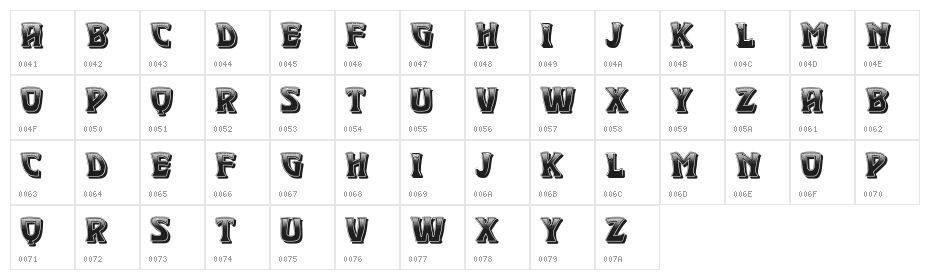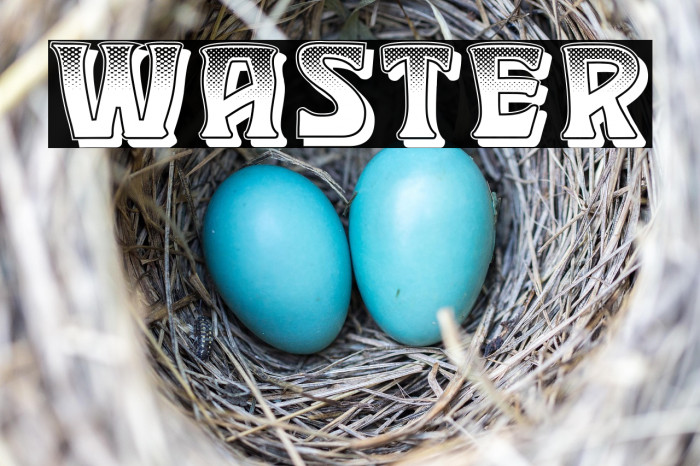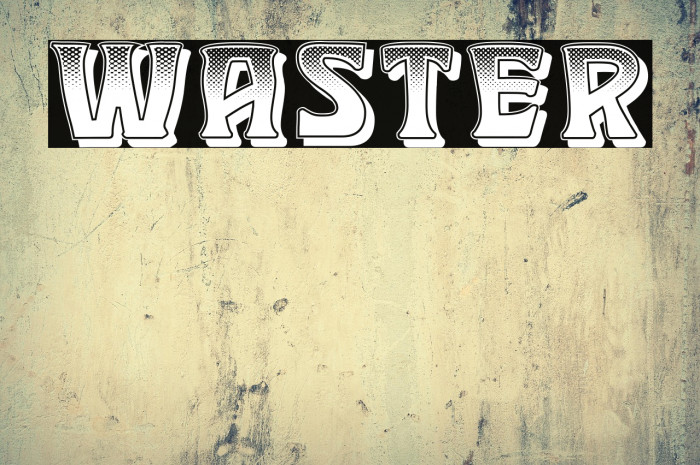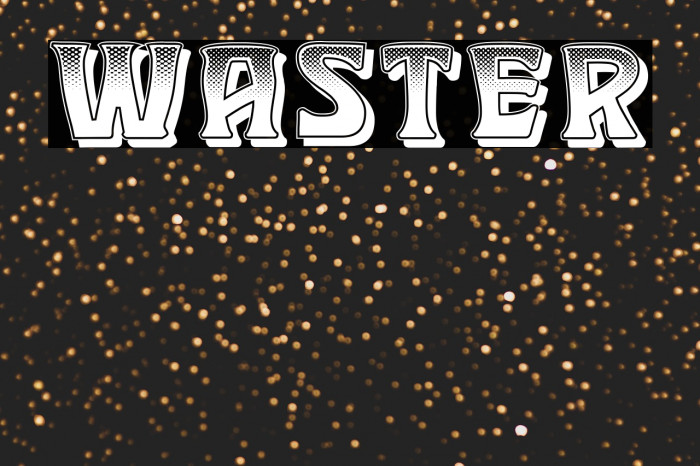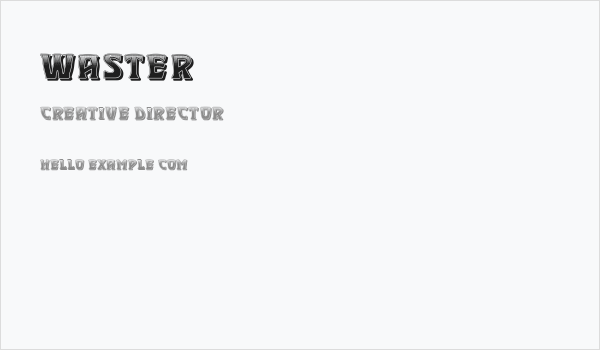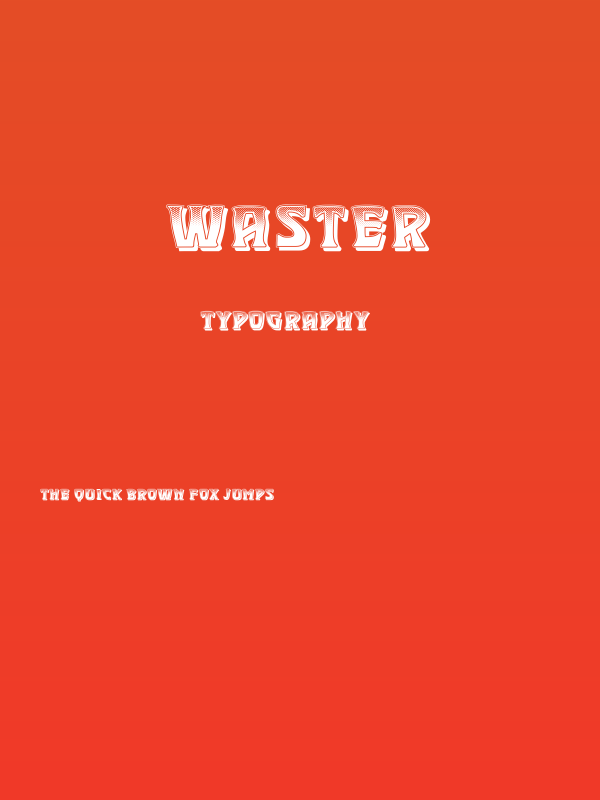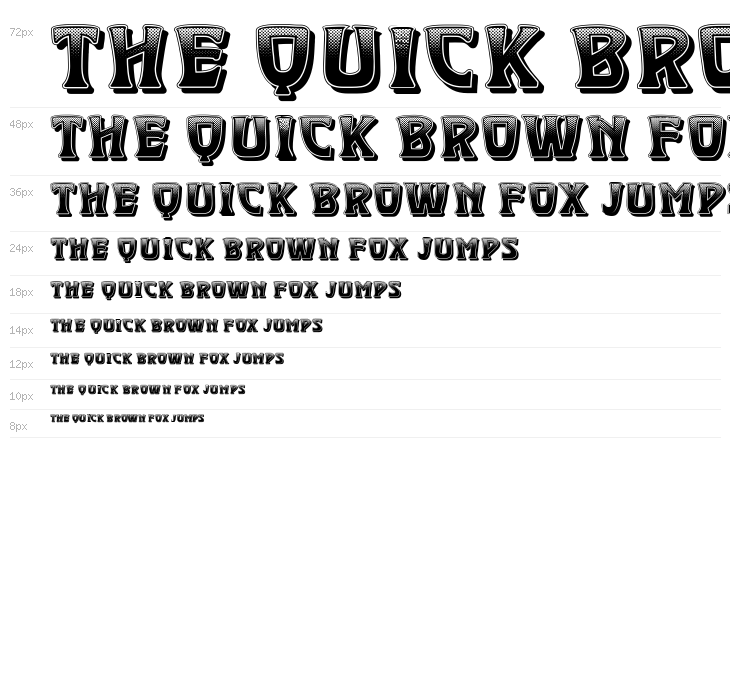
Waster Font
Waster Description
This font features a bold, decorative style with a vintage flair. Each letter is outlined with a thick black shadow, creating a three-dimensional effect that adds depth and character. The interior of the letters is filled with a dotted pattern, enhancing its retro appeal. The font's design is reminiscent of old-school signage or posters, making it ideal for projects that require a touch of nostalgia. The uppercase letters are particularly striking, with unique curves and angles that give each character a distinct personality.
| Proposed Projects | Ideal for vintage-themed posters, retro branding, signage, and event invitations. |